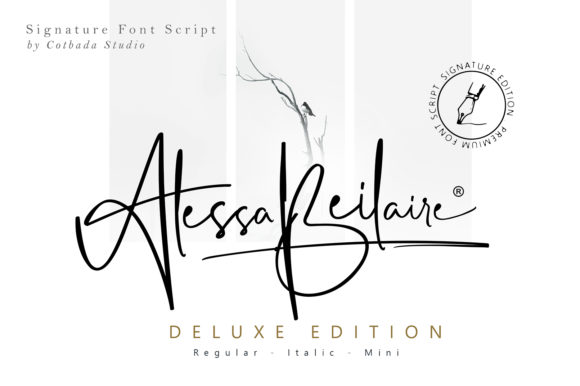
Attention all design enthusiasts, typographers, and creative minds! Meet Alessa Beilaire Font, a captivating creation from the skilled hands of Cotbada Studio. This stunning script font family will ignite your imagination and elevate your design projects to new heights.
Alessa Beilaire is a testament to elegance and simplicity. Its carefully crafted curves and flowing lines exude a timeless charm that will leave a lasting impression on your audience. With three distinct styles at your disposal, you'll have the versatility to tackle any design challenge that comes your way.
From personal branding to professional presentations, Alessa Beilaire adapts effortlessly. Whether you're creating a signature logo, designing an album cover, or crafting heartfelt quotes, this font will add a touch of sophistication and charm to your work. Its exceptional readability ensures that your message will shine through, captivating your audience with every word.
Picture this: your photography adorned with Alessa Beilaire's delicate strokes, transforming into a gallery of captivating memories. Your designs will radiate a sense of exclusivity and artistry, leaving a lasting impression on all who encounter them.
Don't settle for ordinary fonts. Embrace the allure of Alessa Beilaire and unlock a world of creative possibilities. Let your designs speak volumes, conveying messages with grace and elegance.